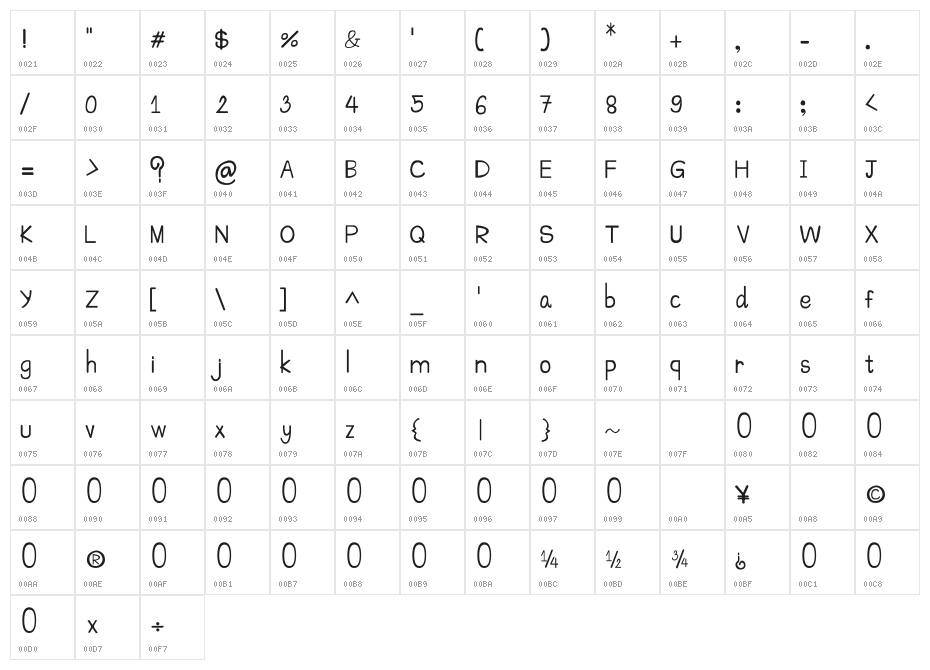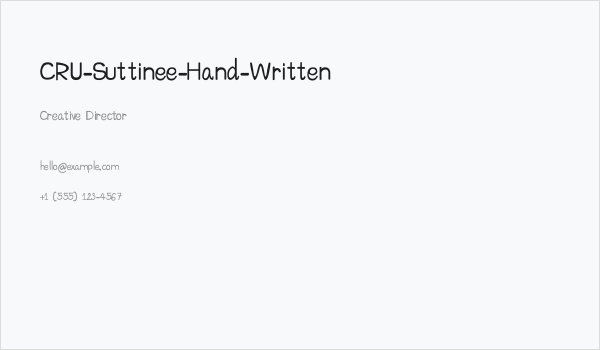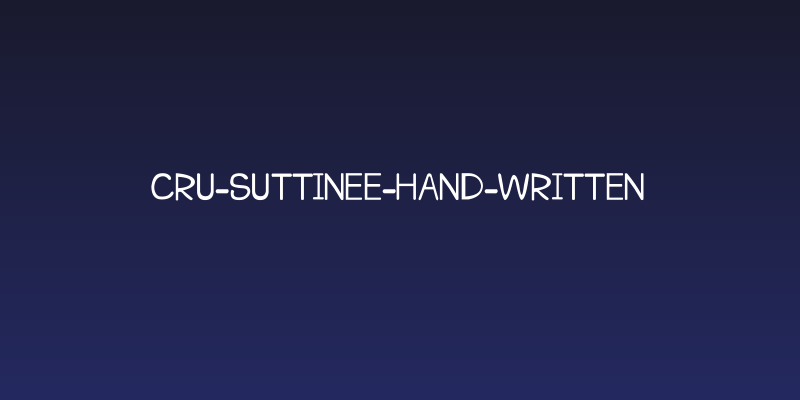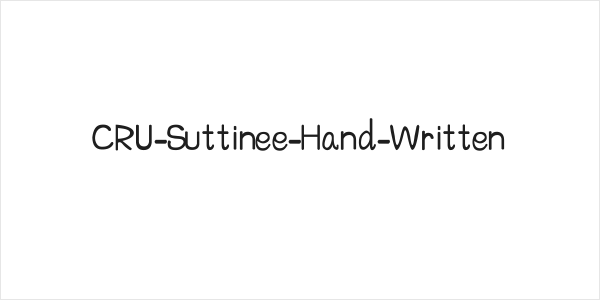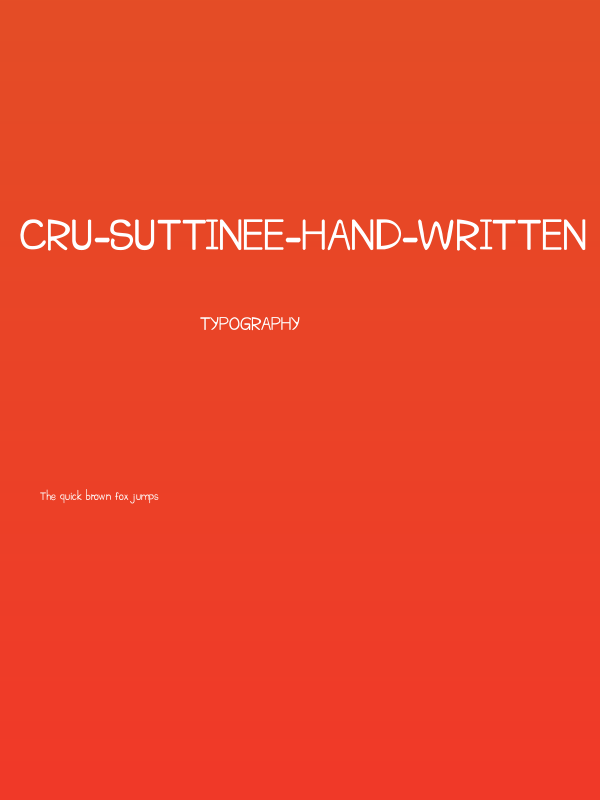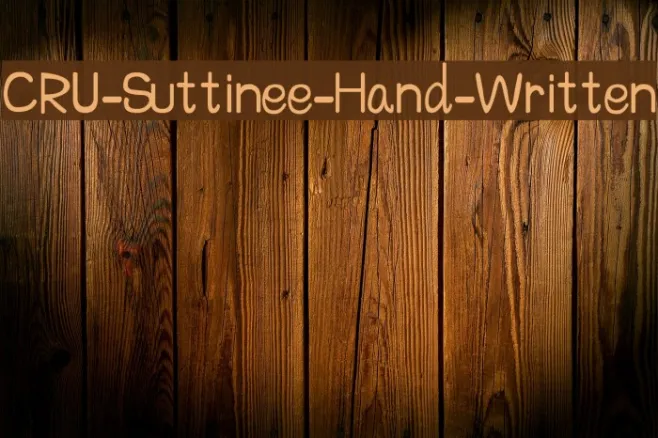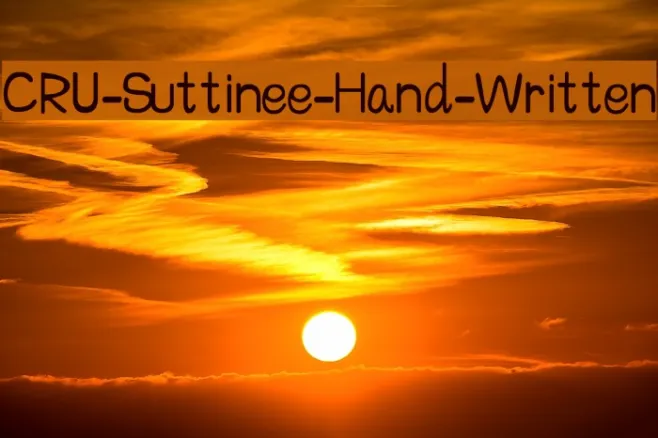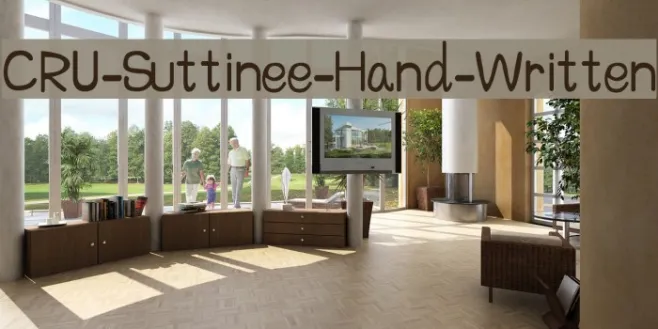
CRU-Suttinee-Hand-Written Font
CRU-Suttinee-Hand-Written Description
This font features a playful and casual handwritten style, characterized by its smooth curves and slightly irregular shapes that mimic natural handwriting. The uppercase letters are bold and rounded, while the lowercase letters maintain a consistent flow with a slightly more compact appearance. The numbers are clear and legible, matching the overall style of the alphabet. Special characters are well-integrated, maintaining the font's cohesive look. This font exudes a friendly and approachable vibe, making it suitable for informal and creative projects.
| Use Case | Logos, Headlines, Informal Text |
| Proposed Projects | Ideal for greeting cards, personal branding, children's books, and creative social media graphics. |